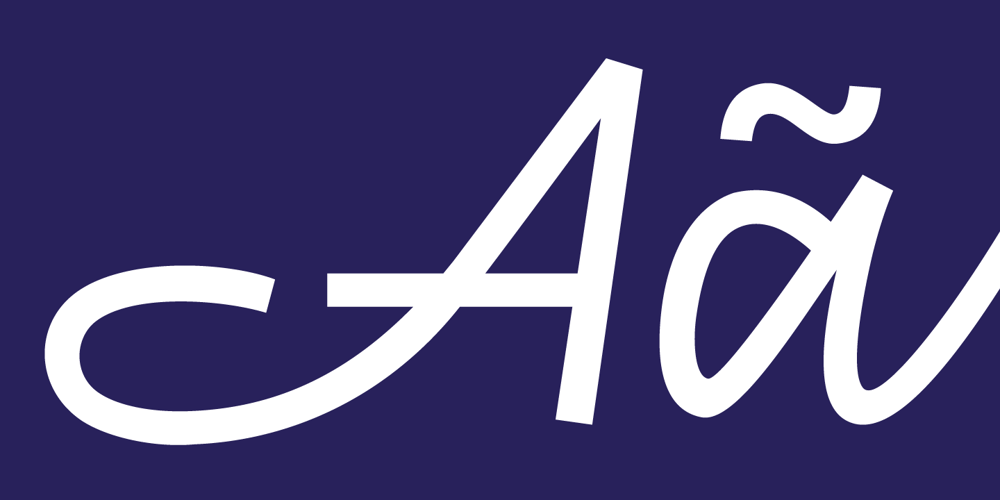
Rialto Script
Rialto Script font
Rialto Script Font Family was designed by Zuzanna Rogatty and published by Zuzanna Rogatty. Rialto Script contains 1 styles and family package options. Rialto Script is inspired by old polish neon signs and their very imaginative and expressive lettering. Neon signs were designed by great Polish artists and architects during communistic times in Poland. A large number of alternates and swashes make every word unique, just like the neon signs were in this period. The typeface is designed to evolve as your type. It contains contextual alternates, basic and discretionary ligatures, initials and swashes. There are swashes for capitals, beginning and ending swashes in lowercase, plus dash swashes in lowercase. Lower and upper case contain a set of block letters which you can find by turning on Small Caps. Rialto Script is a monolinear display swashed script and came from dynamic and rhythmical handwriting. All of the glyphs sit slightly above the baseline with a slanted axis. Rialto is perfect for titles, logos, signs and of course, neon signs.